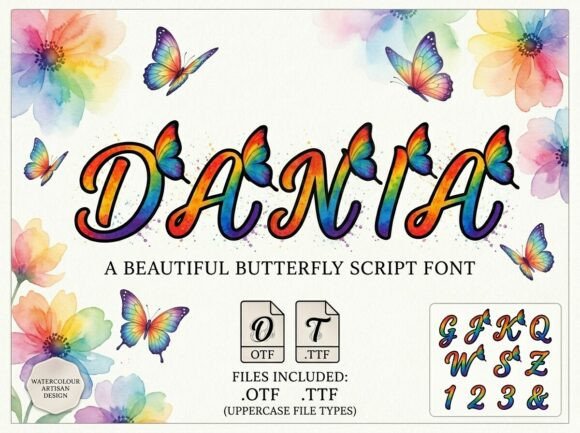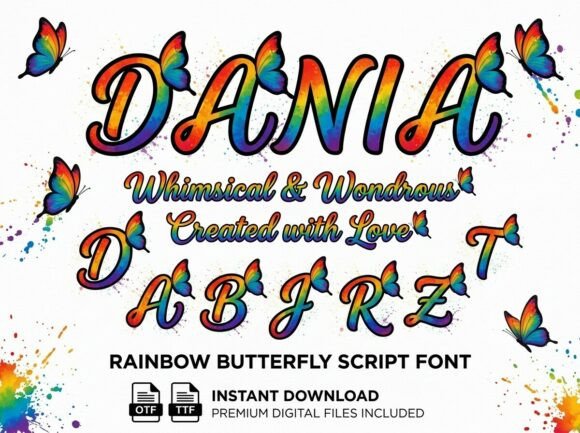
Spread Joy and Color with Dania: The Vibrant Display Script Font
Are you looking for a font that can add a touch of whimsy and playfulness to your designs? Look no further than Dania, a stunning display script font that captures the carefree spirit of nature. With its vibrant rainbow gradient and hand-drawn butterfly wings integrated into the letterforms, Dania is the perfect choice for designers and crafters who want to create cheerful and eye-catching graphics.
A Font that Celebrates Flight and Color
Dania is more than just a font – it’s an experience. It’s a celebration of the beauty and wonder of nature, and the joy that comes with it. Each letterform is carefully crafted to resemble a butterfly in flight, with delicate wings that add a touch of magic to any design. The font’s rainbow gradient effect adds an extra layer of visual interest, making it perfect for designs that need to stand out.
Perfect for Children’s Birthday Party Invitations and Preschool Branding
Dania is a font that’s specifically designed with kids in mind. Its playful and whimsical design makes it perfect for children’s birthday party invitations, preschool branding, and cheerful social media graphics. Imagine creating a birthday party invitation that features a bright and colorful design, complete with butterfly wings and a rainbow gradient. With Dania, you can make that vision a reality.
Cheerful Social Media Graphics and More
But Dania isn’t just limited to birthday party invitations and preschool branding. Its versatility makes it perfect for a wide range of design projects, including social media graphics, flyers, posters, and more. Whether you’re creating a design for a kids’ event or just want to add a touch of whimsy to your social media feed, Dania is the perfect choice.
Hand-Drawn with Love and Care
One of the things that sets Dania apart from other fonts is its hand-drawn design. Each letterform is carefully crafted with love and care, giving the font a unique and personal touch. The hand-drawn butterfly wings add an extra layer of charm, making each letterform feel like a work of art.
Tips for Using Dania in Your Designs
Here are a few tips for using Dania in your designs:
- Use Dania as a headline font to add a touch of whimsy to your design.
- Pair Dania with a simpler font to create visual interest.
- Experiment with different color combinations to find the perfect rainbow gradient effect.
- Use Dania to create custom illustrations and graphics.
Get Ready to Spread Joy and Color with Dania
If you’re looking for a font that can add a touch of magic to your designs, look no further than Dania. With its vibrant rainbow gradient and hand-drawn butterfly wings, Dania is the perfect choice for designers and crafters who want to create cheerful and eye-catching graphics. So why wait? Download Dania today and start spreading joy and color with your designs!
Dania Font Features:
- Vibrant rainbow gradient effect
- Hand-drawn butterfly wings integrated into the letterforms
- Perfect for children’s birthday party invitations, preschool branding, and cheerful social media graphics
- Hand-drawn with love and care
- Unique and personal touch
In conclusion, Dania is a font that’s sure to bring a smile to anyone’s face. Its whimsical design and vibrant rainbow gradient effect make it perfect for designers and crafters who want to create cheerful and eye-catching graphics. With its hand-drawn design and unique features, Dania is a font that’s sure to stand out in any design project.